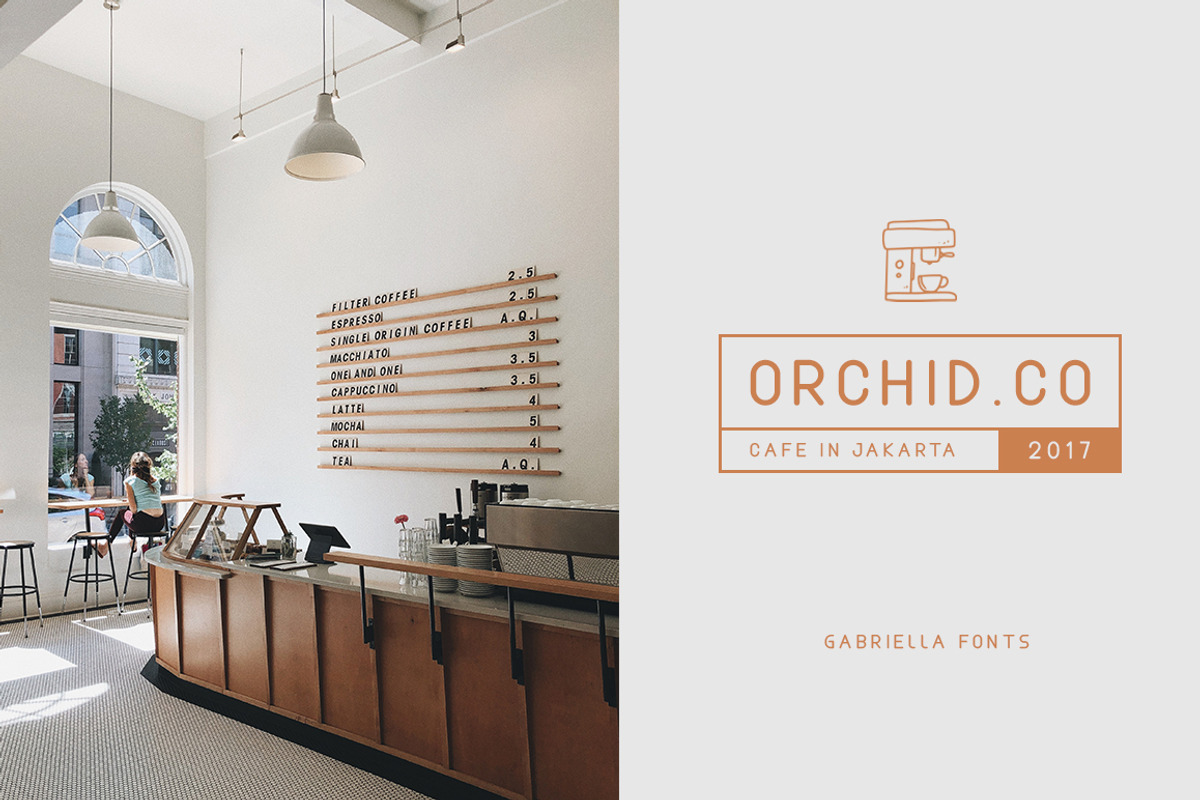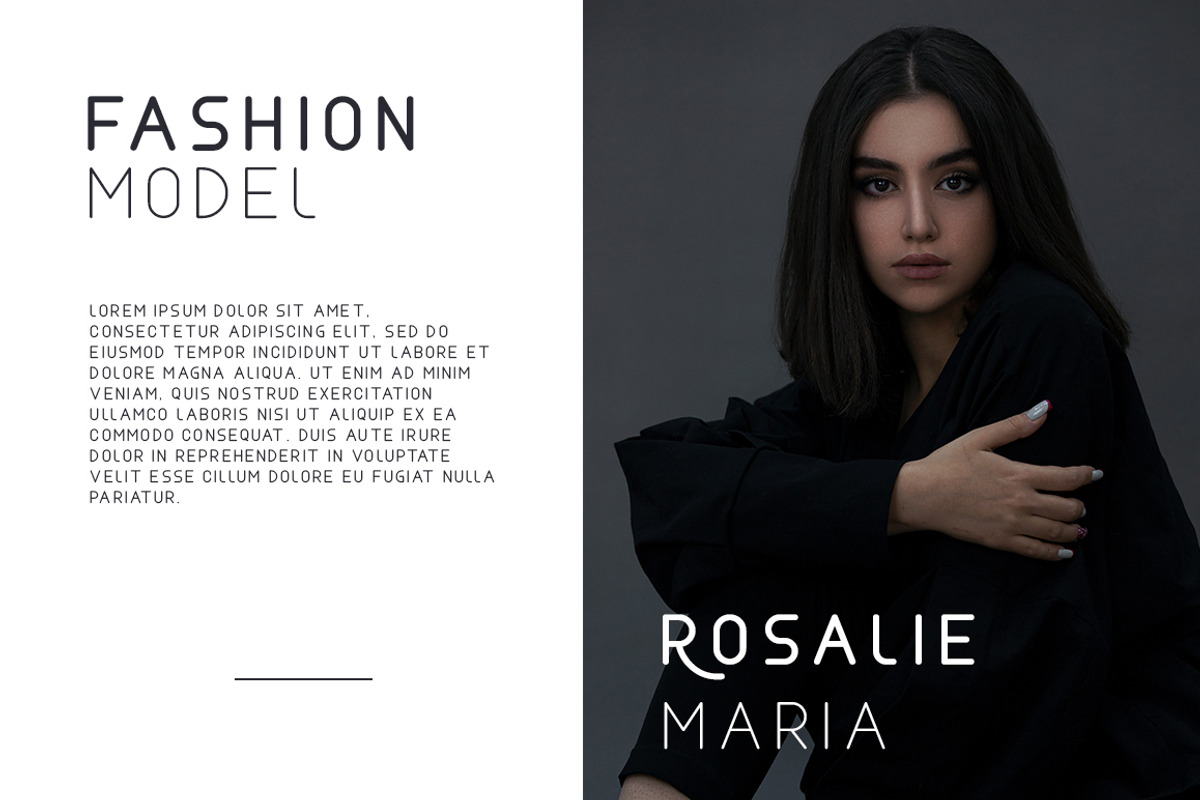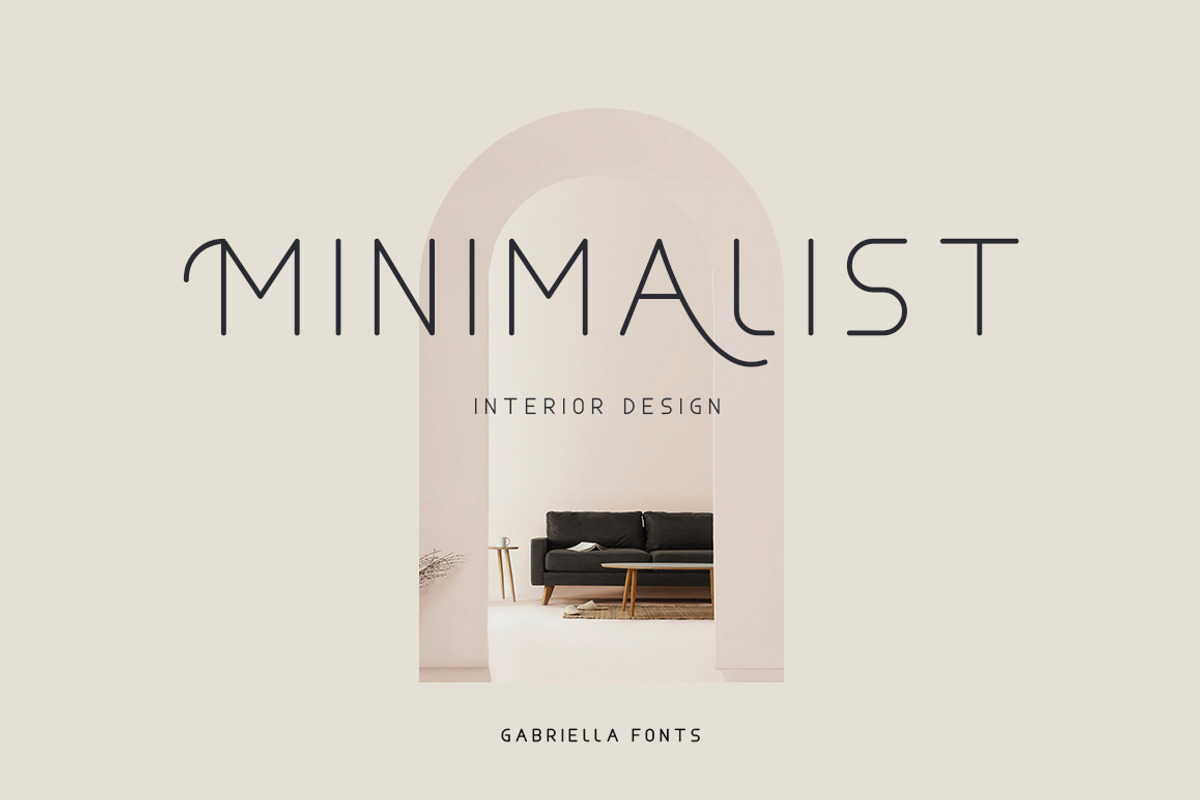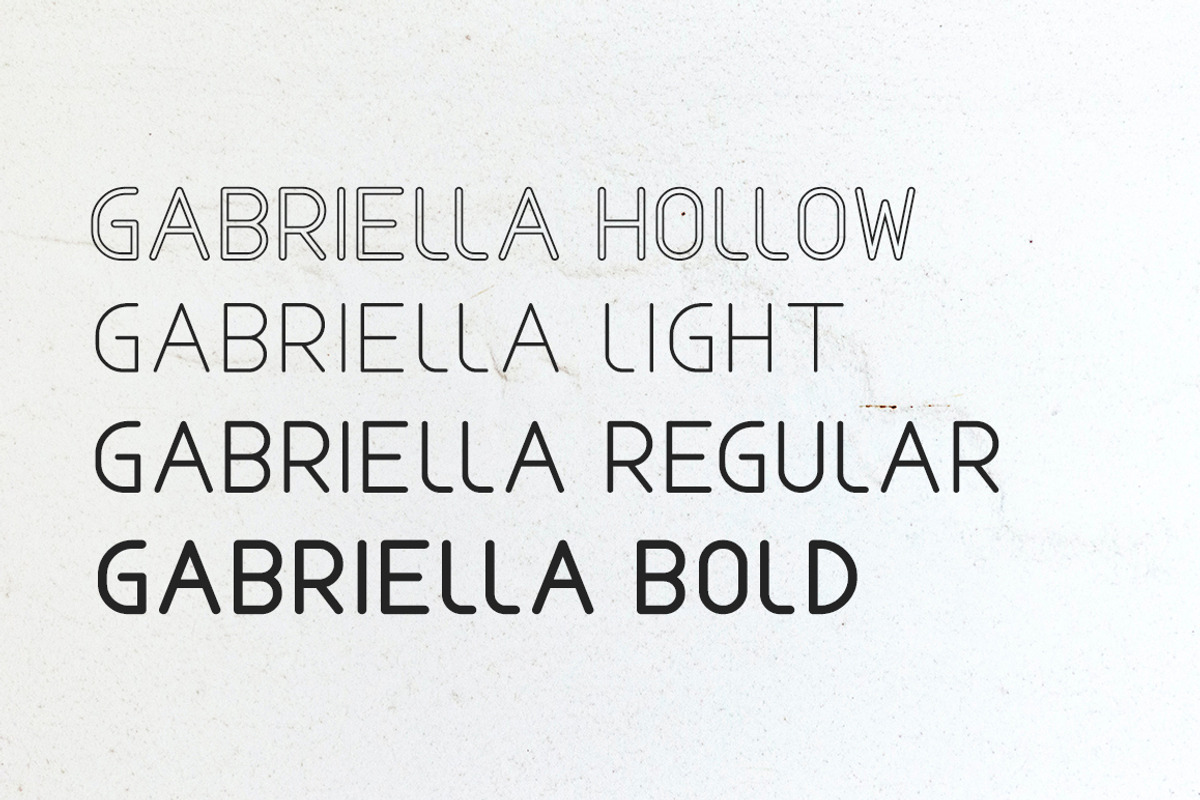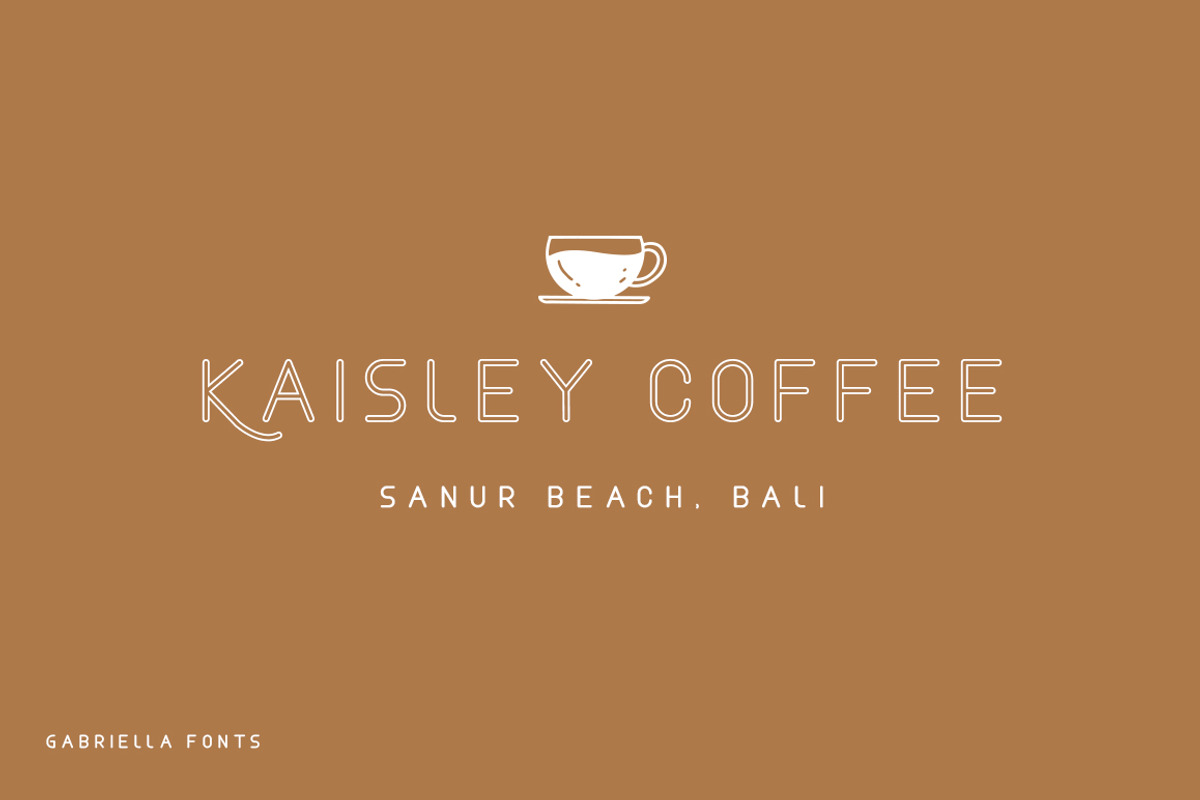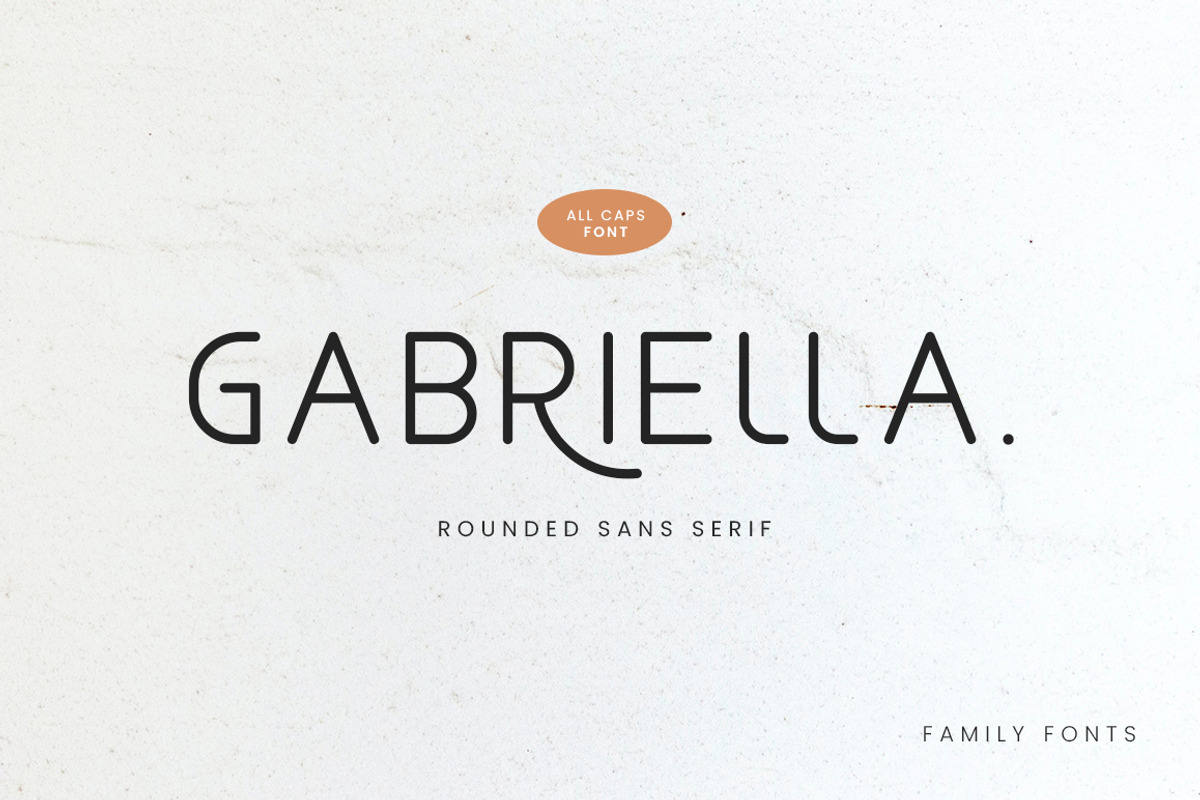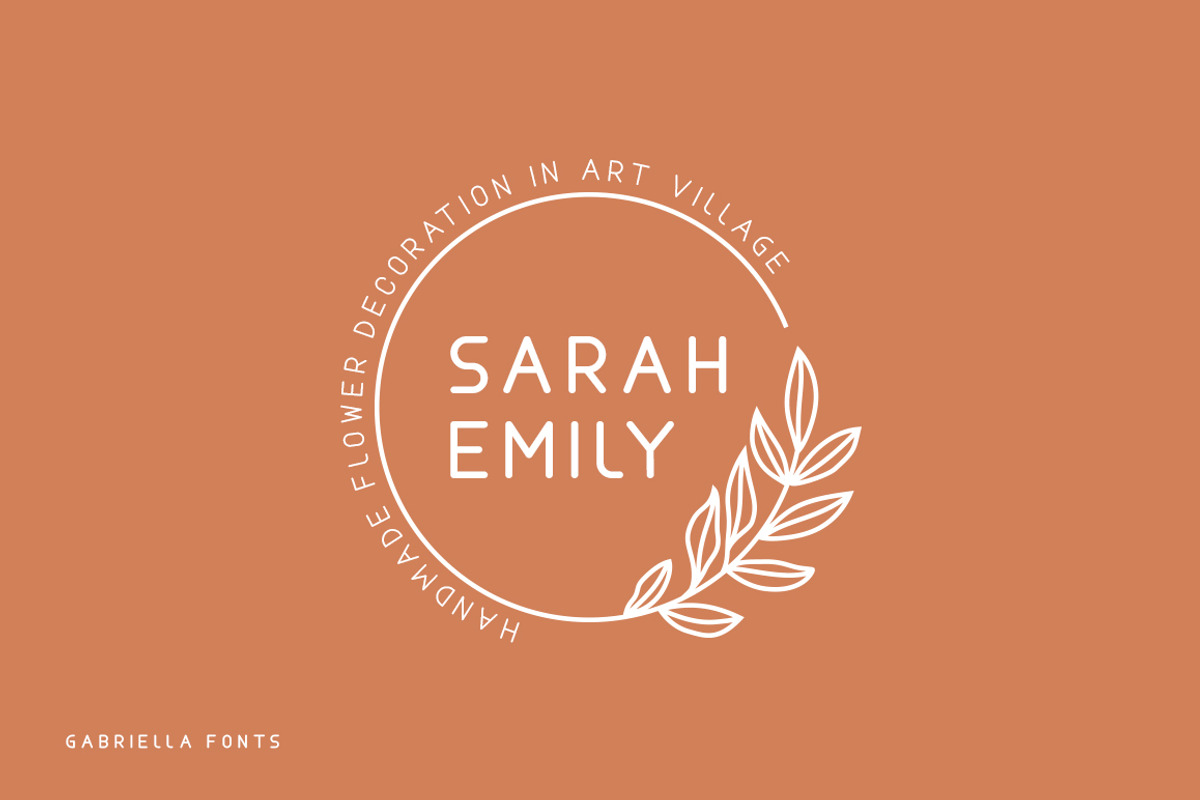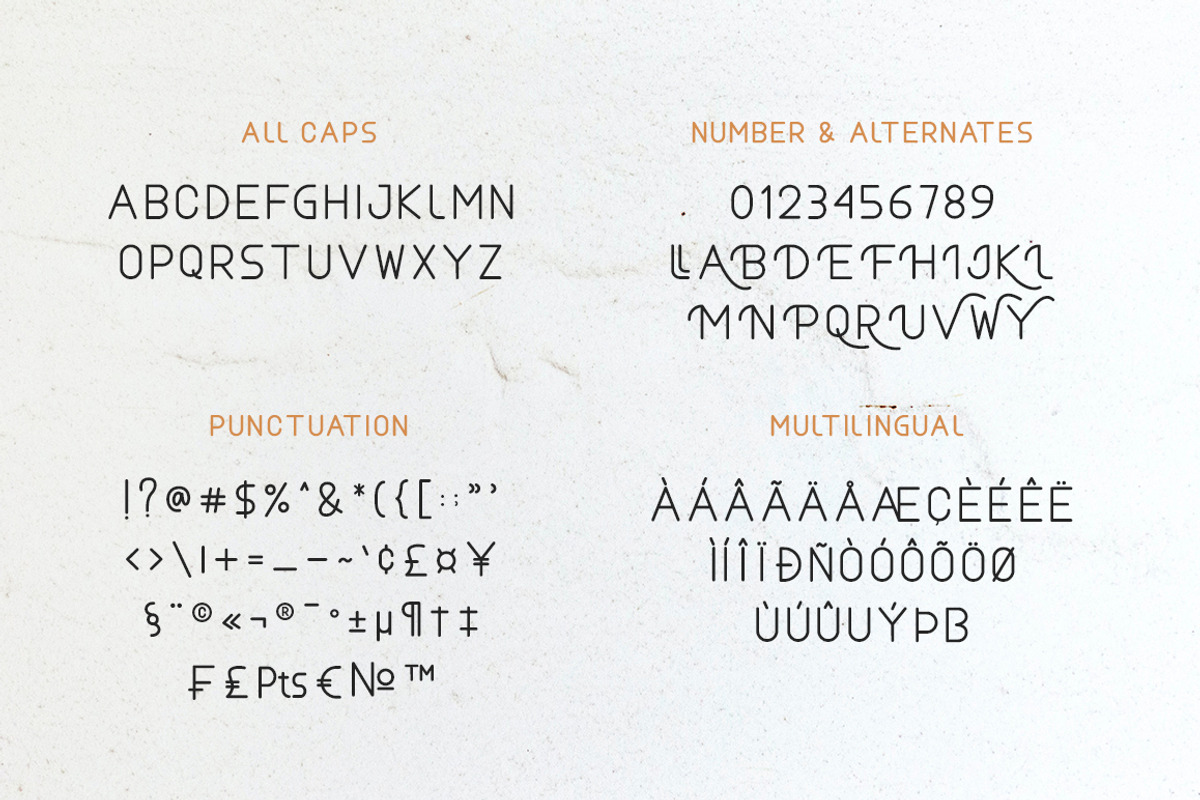
Gabriella - Modern Sans Serif
Introducing Gabriella Sans - An elegant modern sans serif with stylistic alternates. Its clean and minimalistic works wonderfully on its own for logos, headlines, posters, packaging and many more. It is PUA encoded which means you can access all of the glyphs and swashes with ease.
- Stylistic Alternates & Ligature
- Number & Punctuation
- Support Multilingual Languange